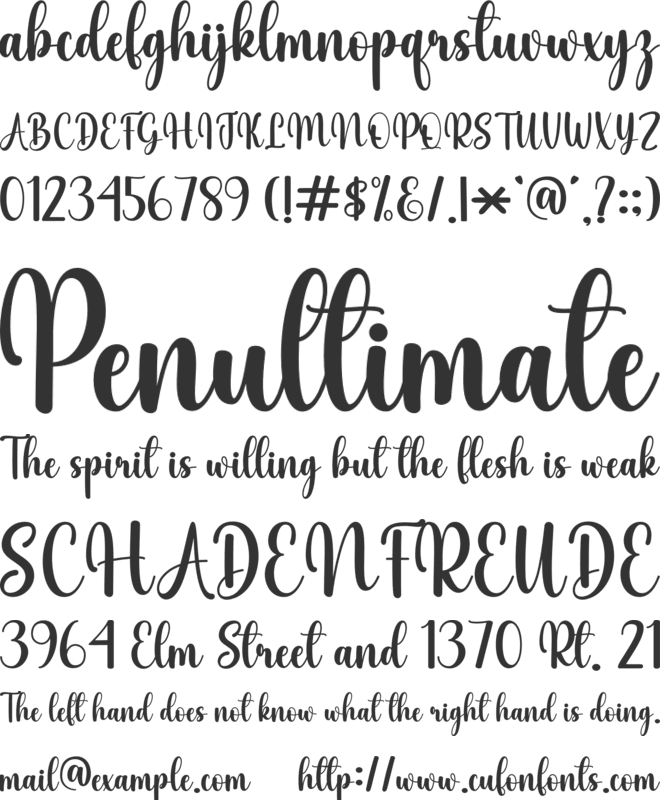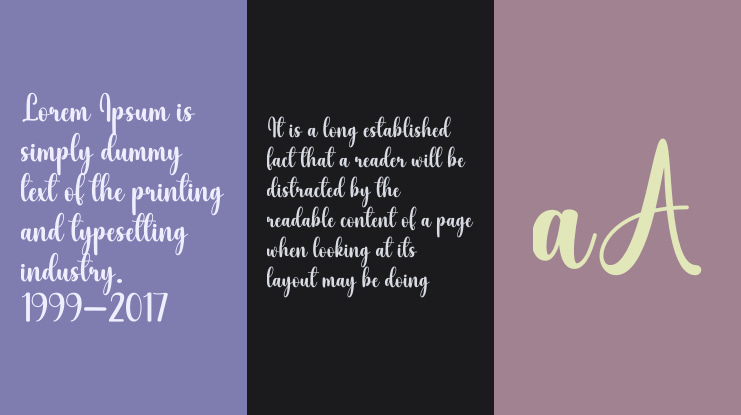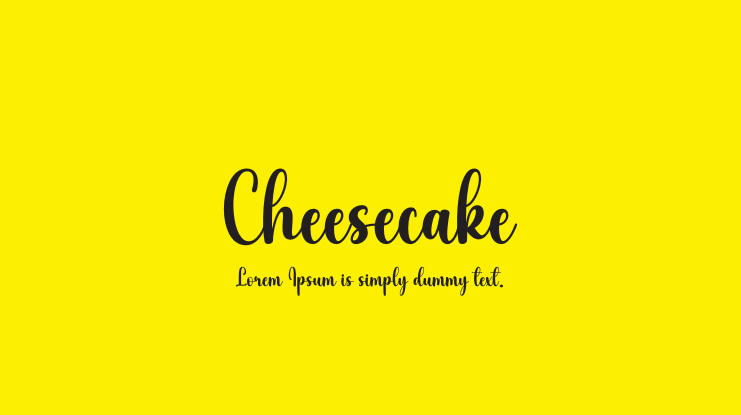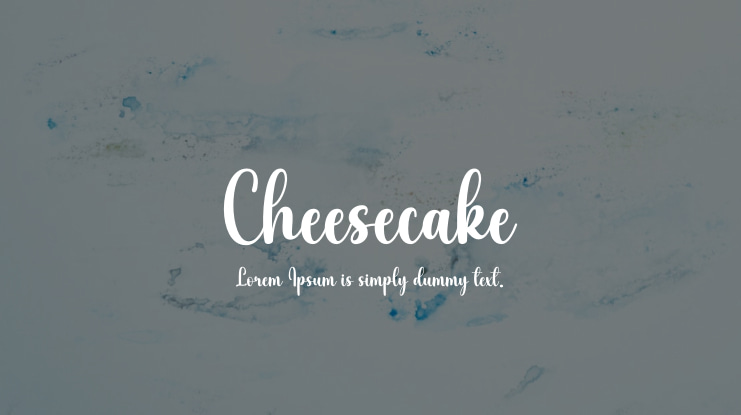
Cheesecake Font Family
Cheesecake Homemade Duo is a stylish and delicate duo font (sans serif and script) suitable for a wide spectrum of applications. From greeting cards to headlines, this font will guarantee a romantic touch.